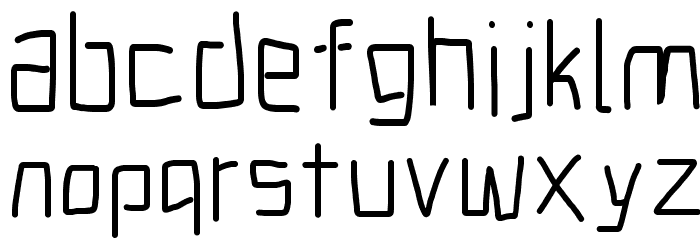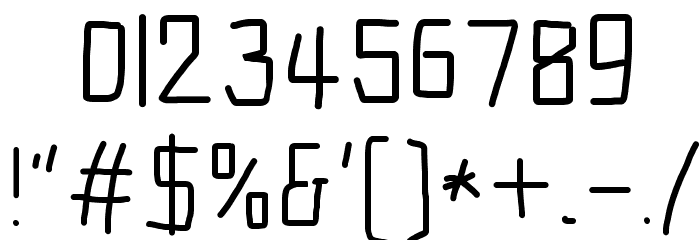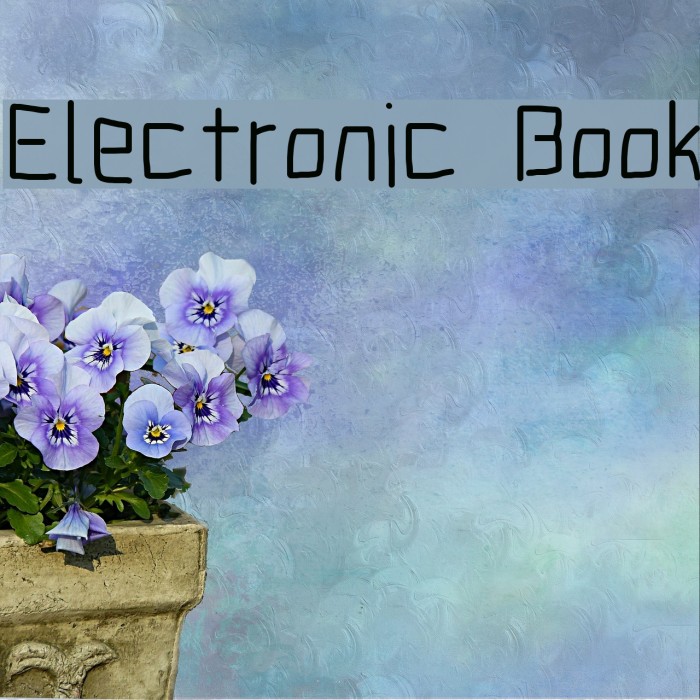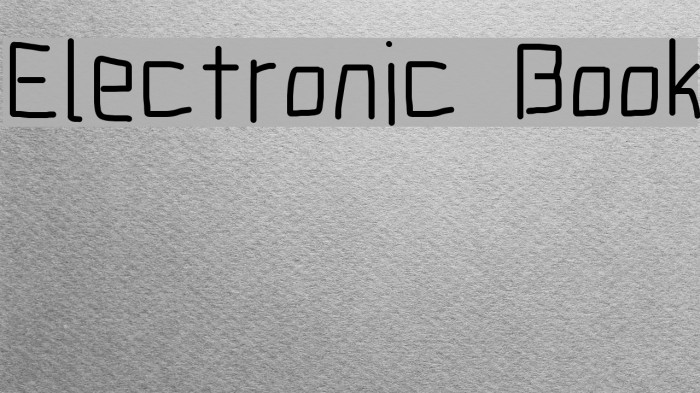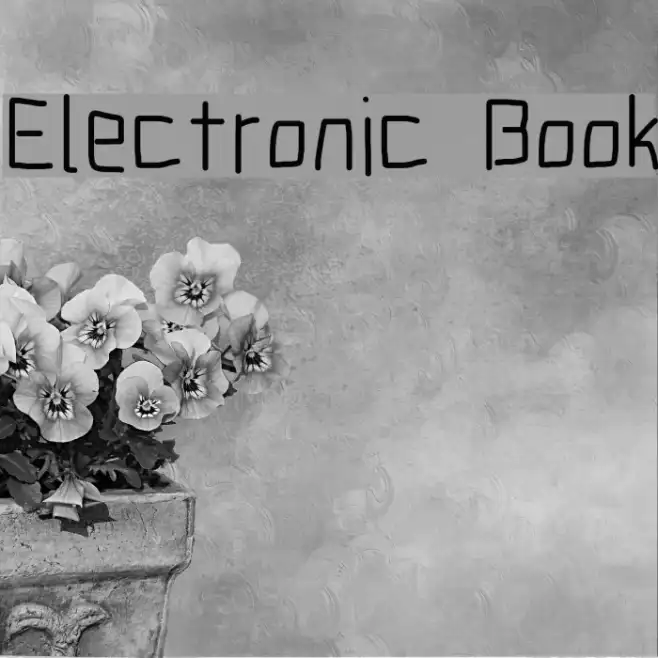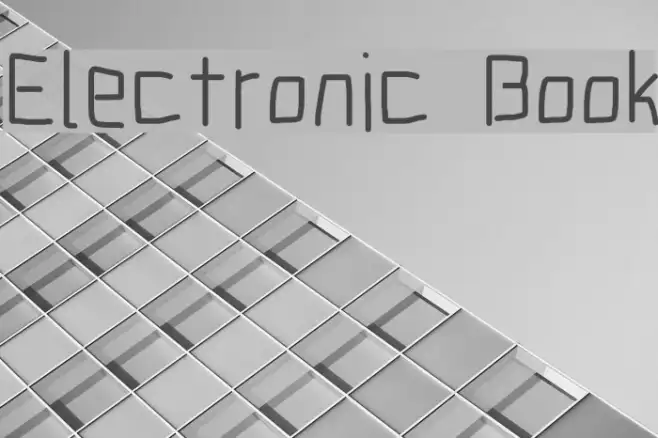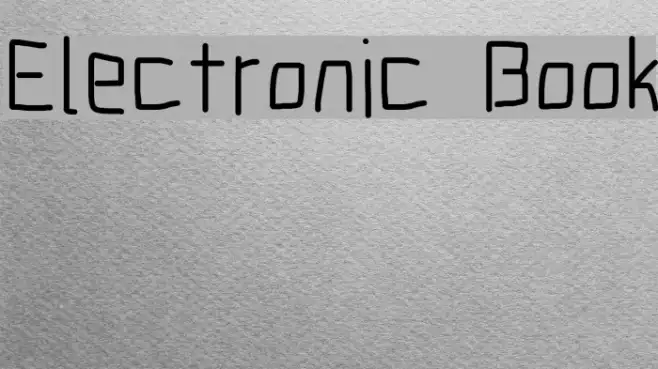
Electronic Book Font
This font features a unique, hand-drawn style with a modern twist. The characters are slightly irregular, giving them a playful and informal appearance. The uppercase letters are tall and narrow, while the lowercase letters maintain a consistent height, adding to the font's quirky charm. The numbers are bold and easily distinguishable, with a geometric influence that complements the overall design. Special characters are included, maintaining the same hand-drawn aesthetic. This font is perfect for projects that require a personal touch, such as invitations, posters, or creative branding.
A playful, hand-drawn font with a modern, informal style.
- Proposed Projects: Ideal for creative branding, invitations, posters, and any project needing a personal touch.
- Overall Style: Modern, Decorative
- Use Case: Headlines, Logos, Creative projects